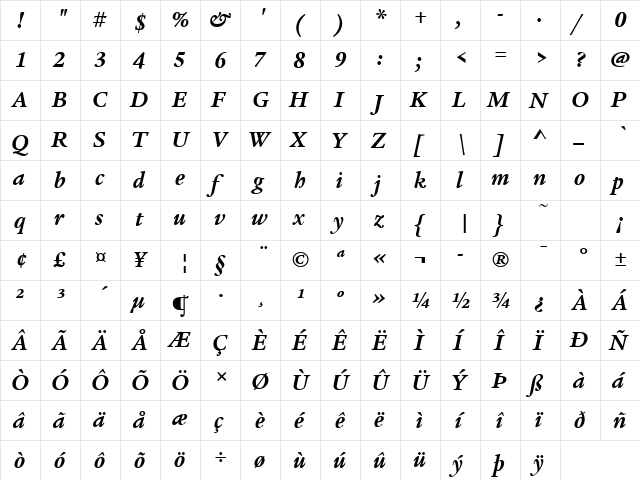
Legacy Serif ITC TT BoldItalic
Design Context for Legacy Serif ITC TT Typeface
Legacy Serif ITC TT brings classic typographic sensibility to the table — its serifs and measured letterforms reflect centuries of print heritage. Its italic angle brings a sense of urgency and motion to the letterforms. The heavy weight commands attention and anchors typographic hierarchies.
Pro Tip: Set Legacy Serif ITC TT with slightly loose tracking in headlines to let each letterform's detail read clearly at display sizes.